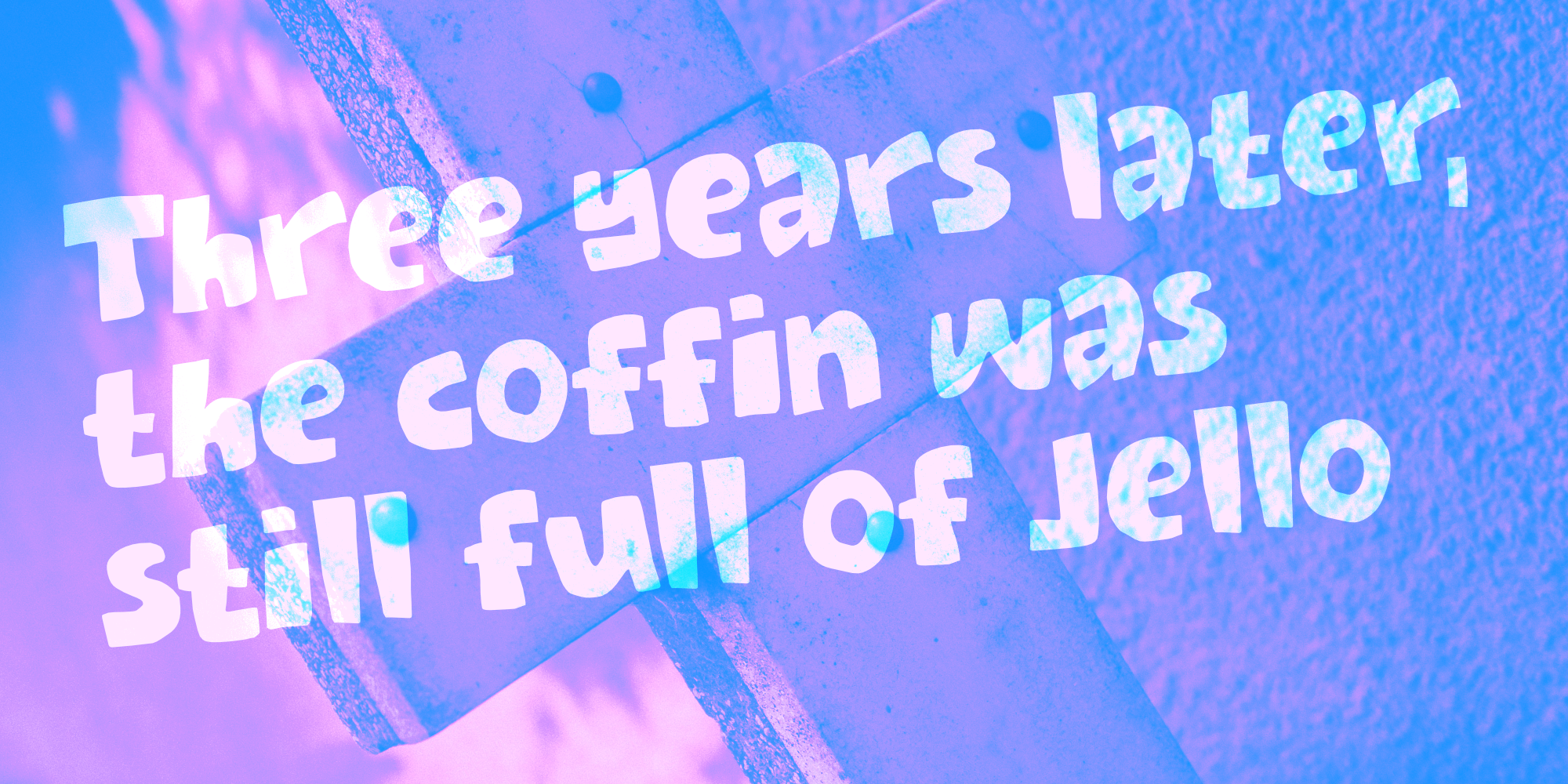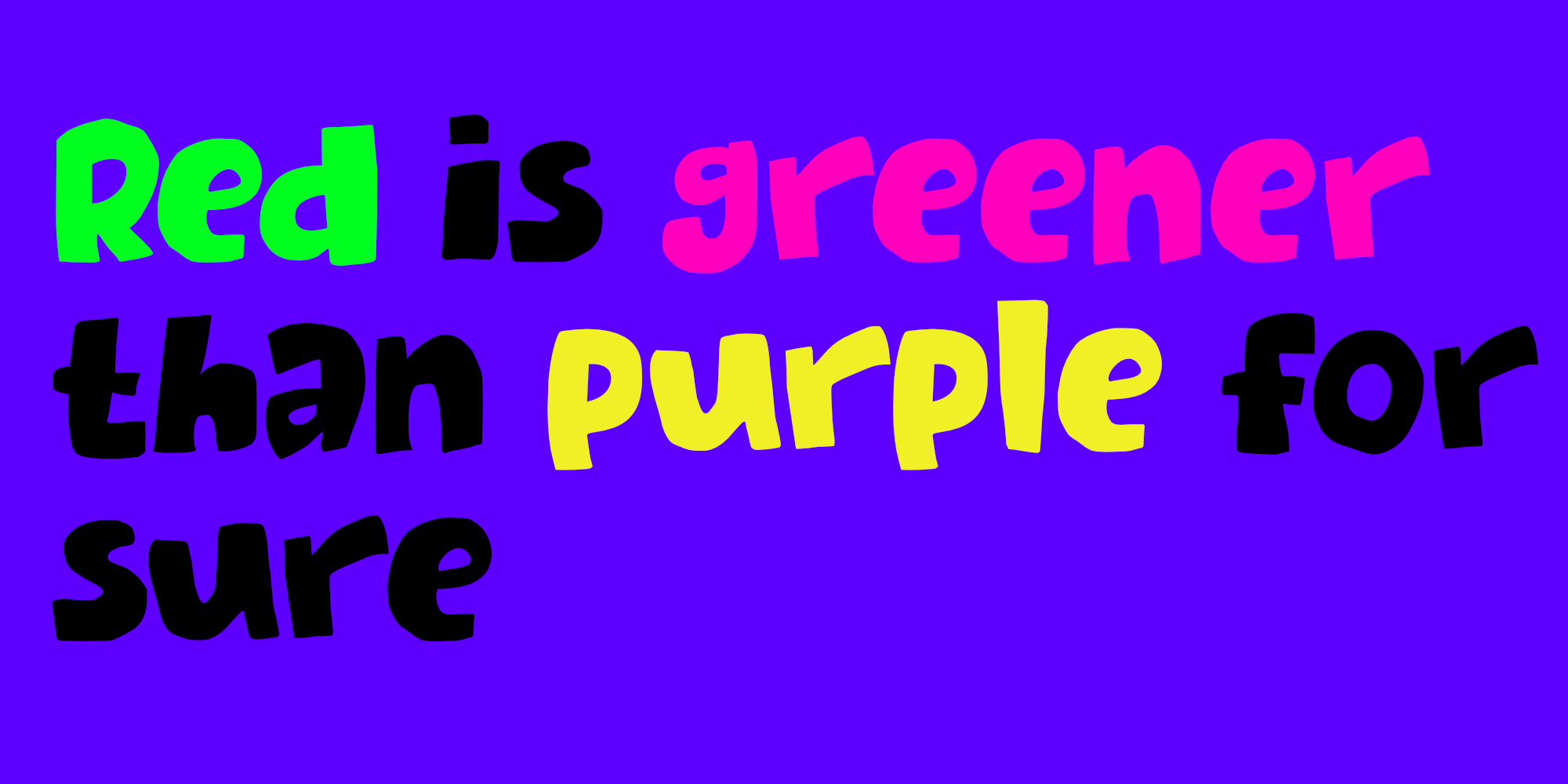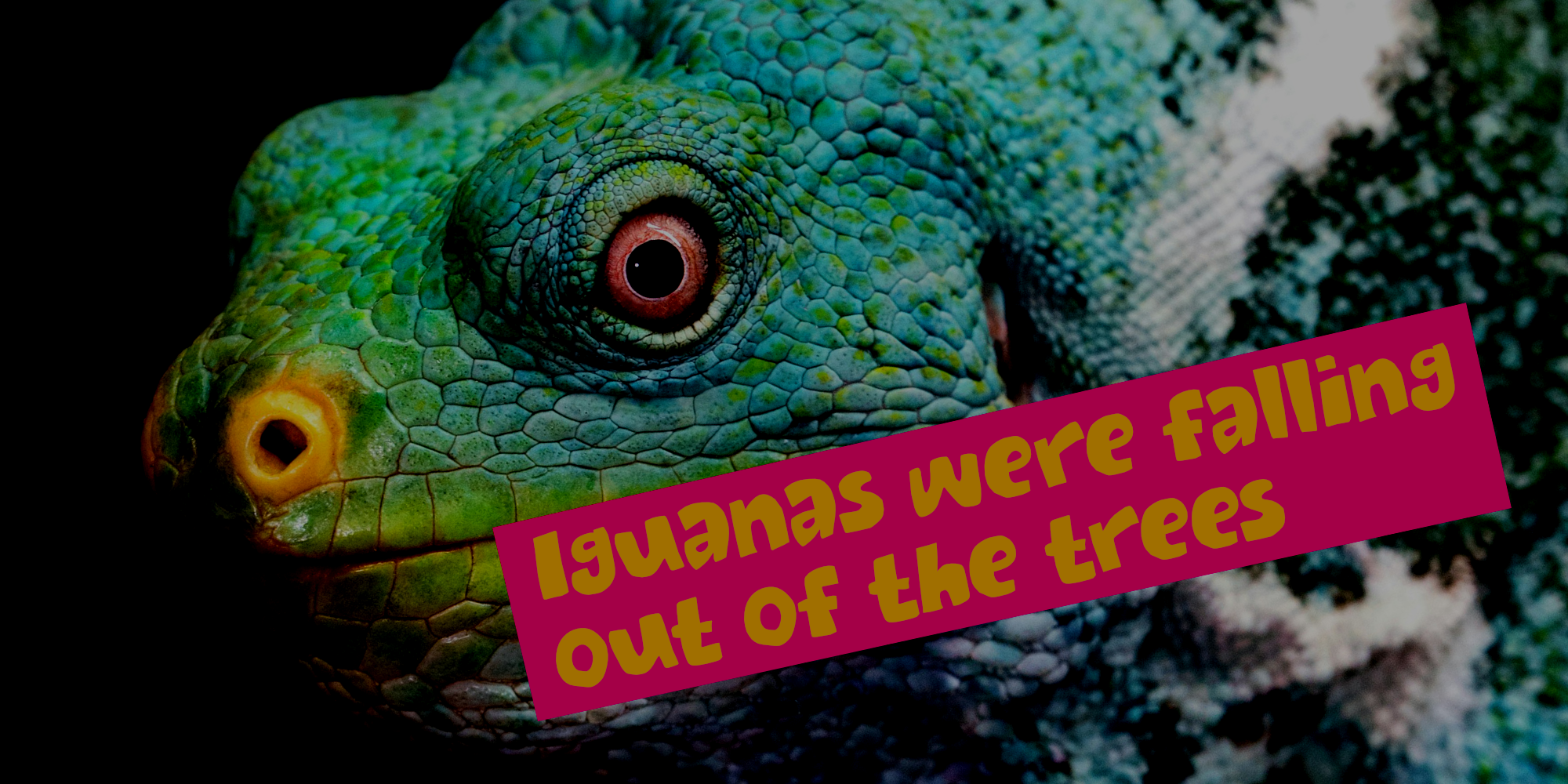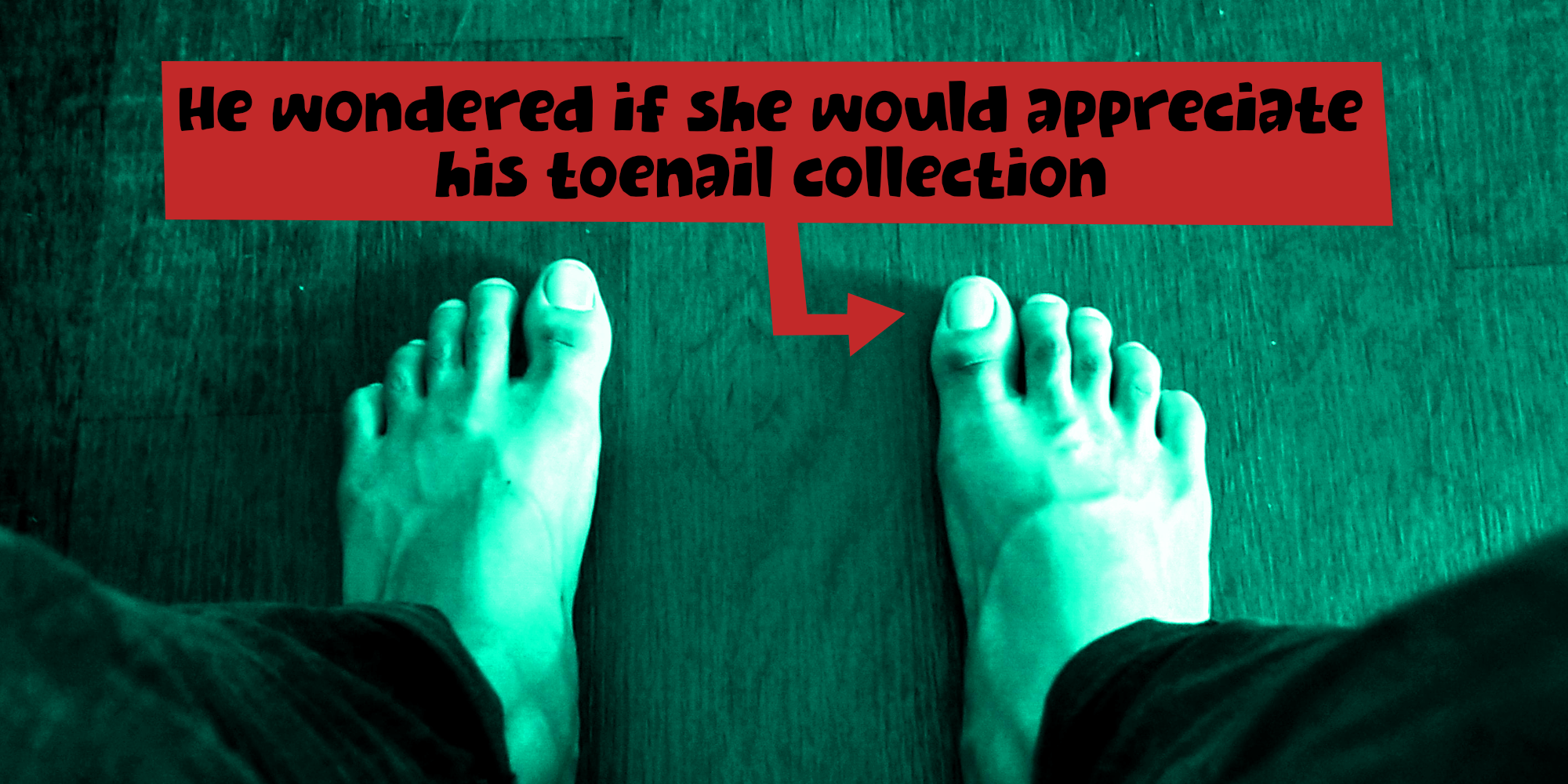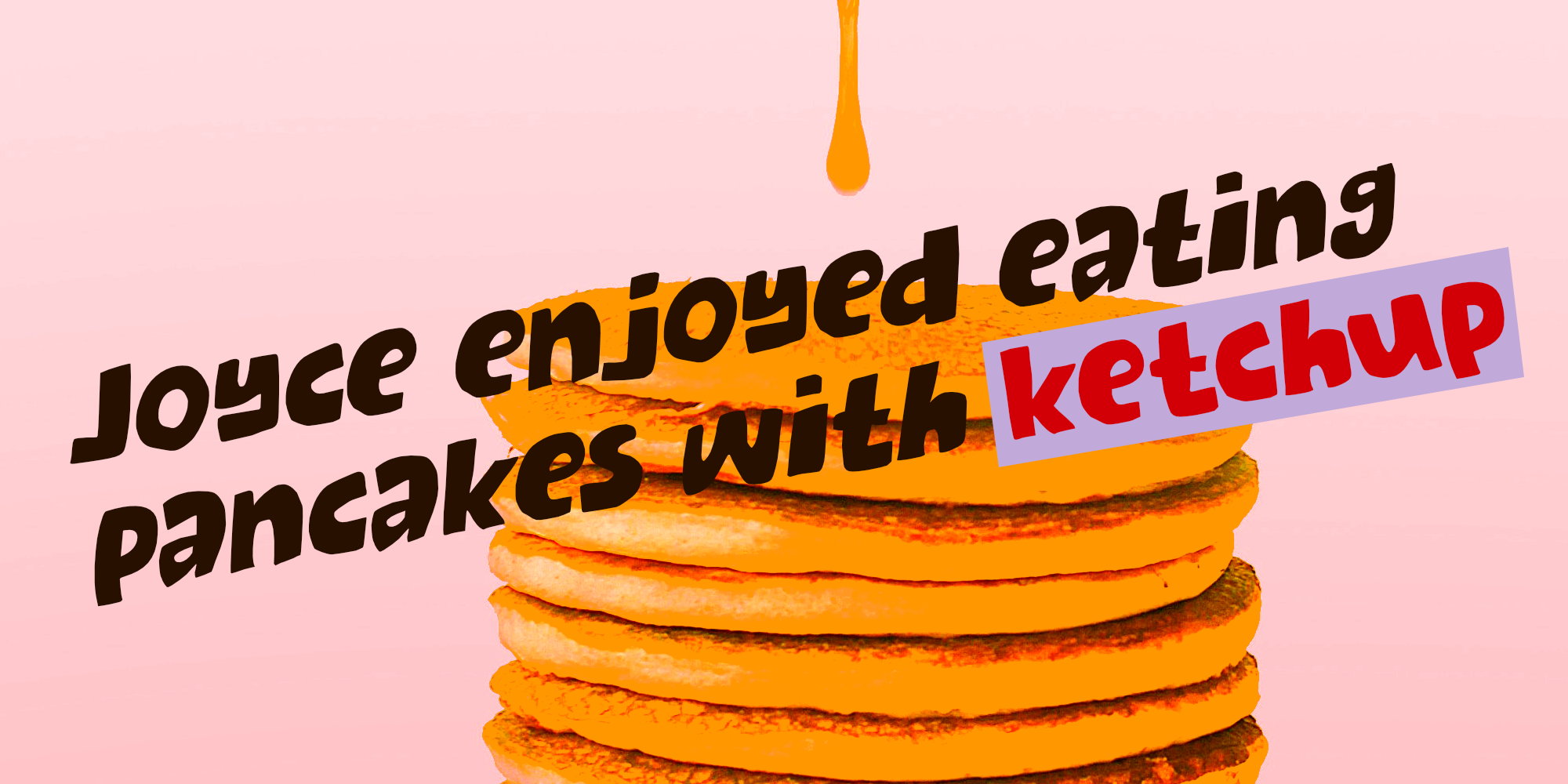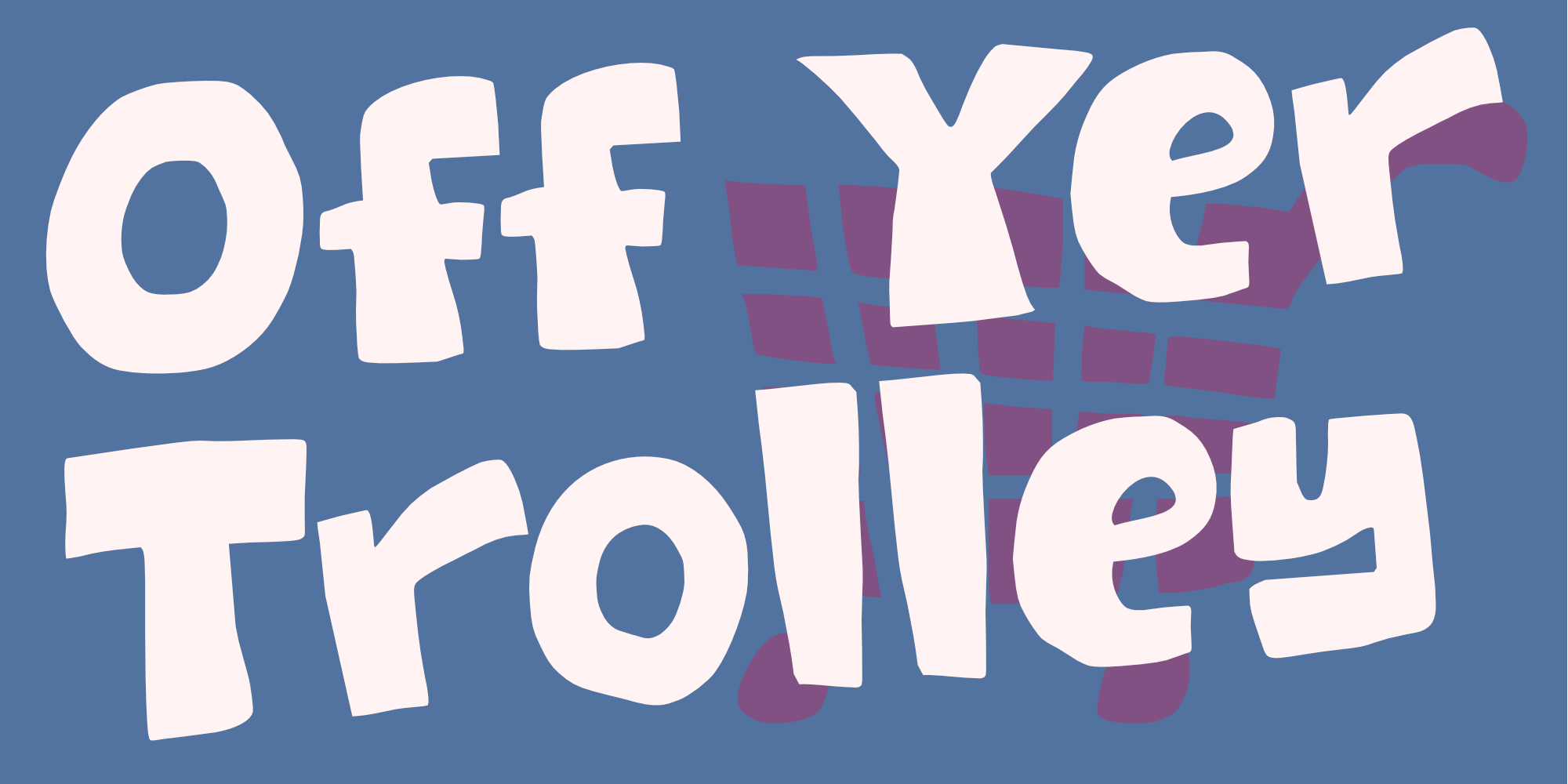
Off Yer Trolley (2 fonts)
Off Yer Trolley is a handmade cartoon or kids font. As the name implies, this font certainly behaves in an unusual way and you can use it for something silly as well!